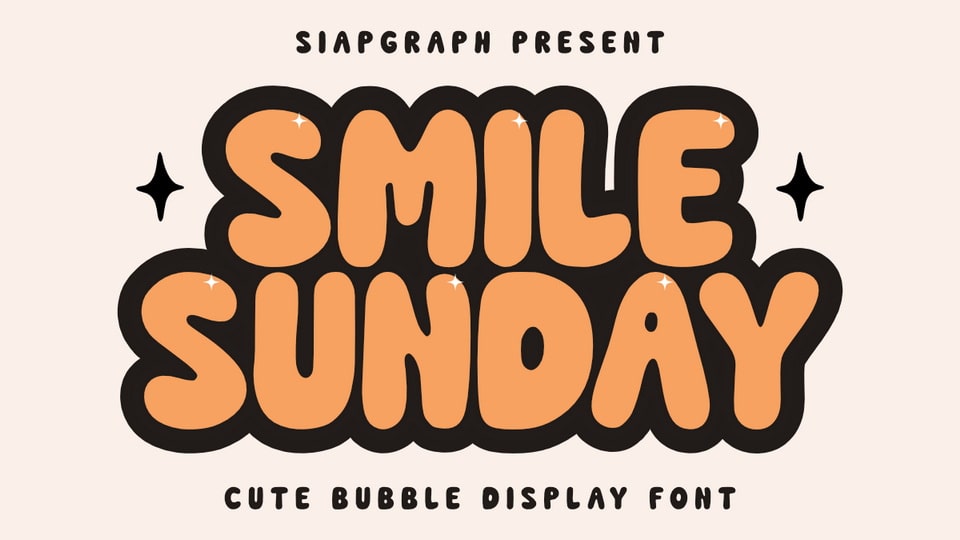
Download Smile Sunday font, a cheerful and playful display typeface that radiates warmth and an irresistibly cute charm. Its rounded, slightly bouncy letterforms with a soft, inviting aesthetic.
Designer: SiapGraph